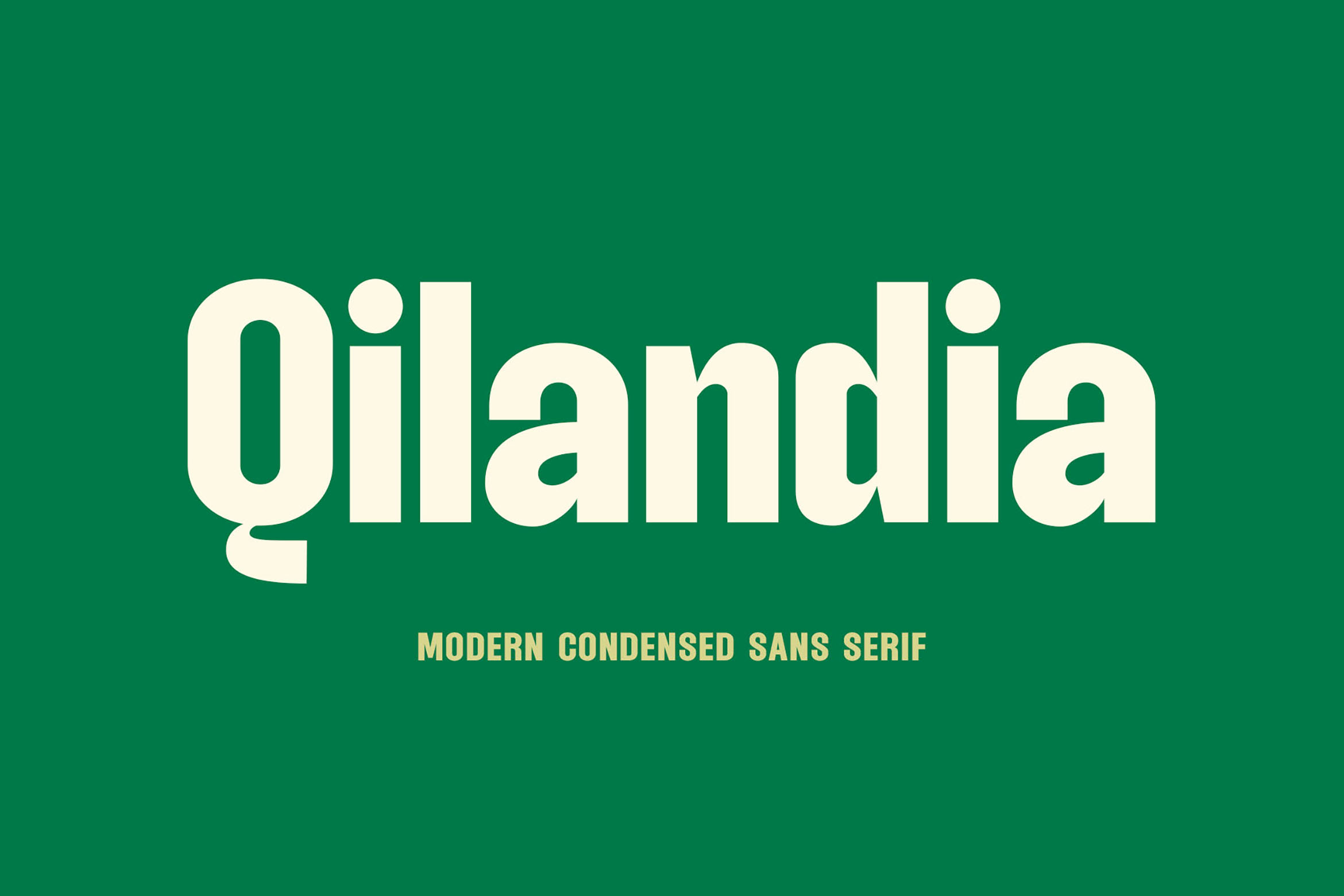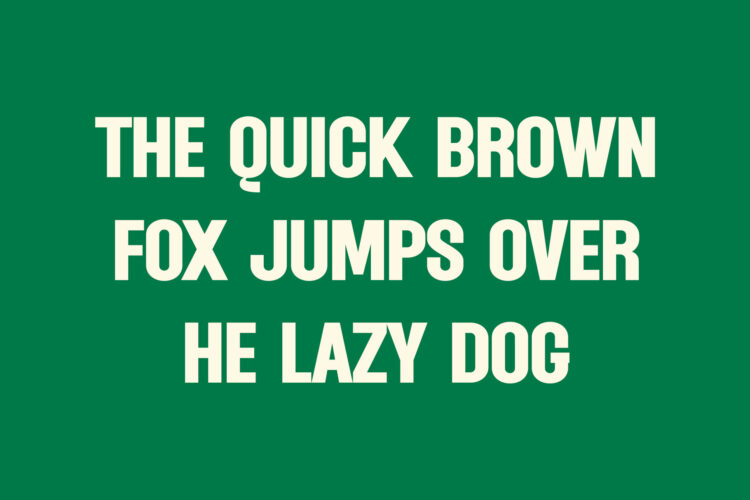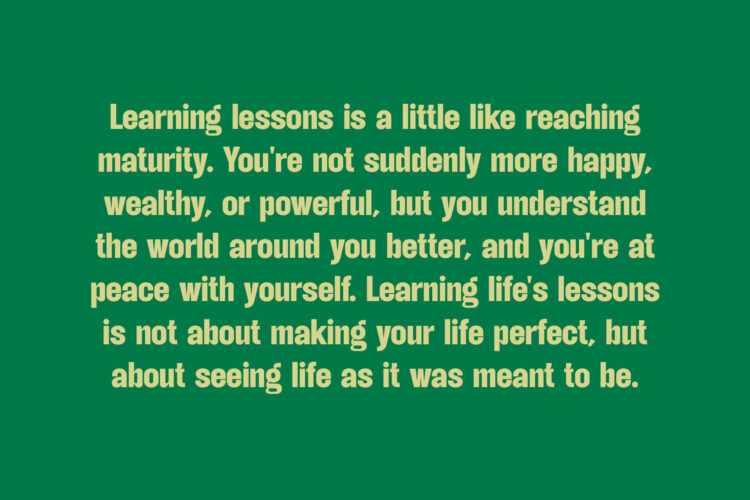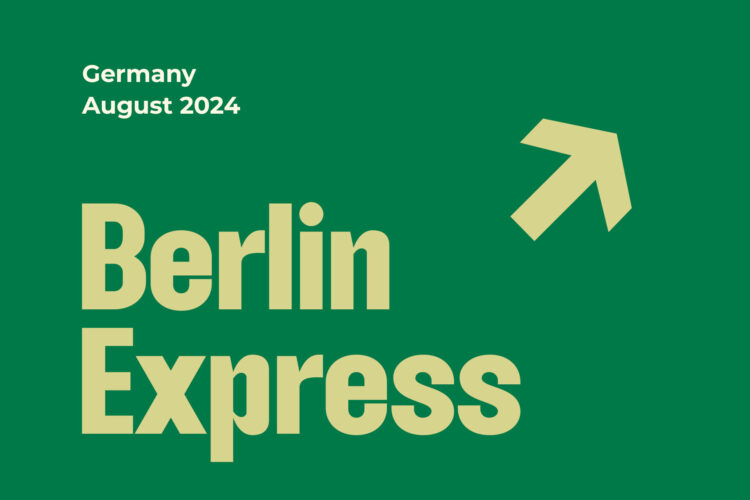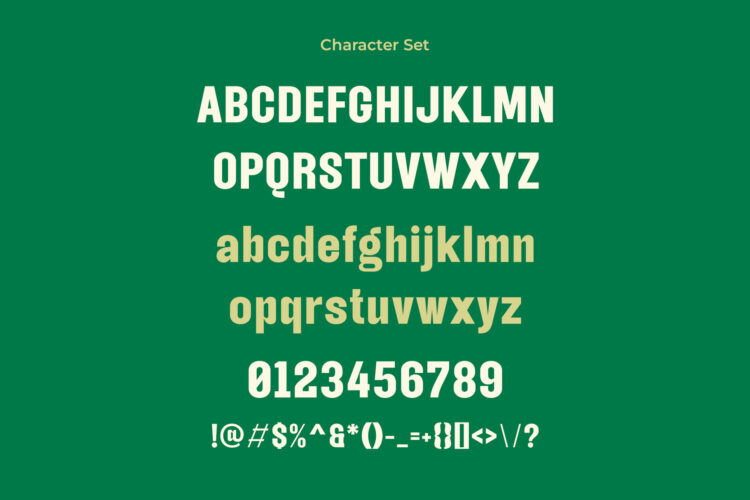
Introducing our new Qilandia, modern sans serif font with elegant style this is perfect for branding, logos, invitation, magazines, product packaging and more.
Qilandia – Modern Condensed Sans Serif